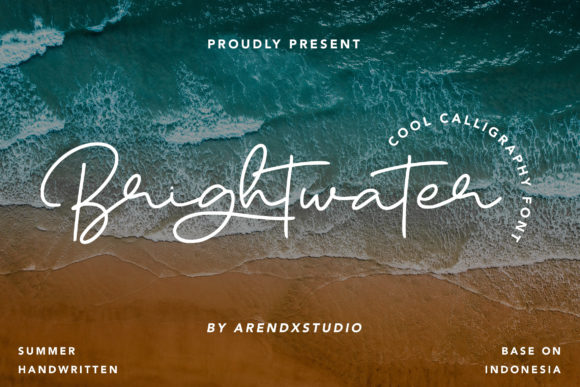
The Magic of Brightwater Font: A Designer’s Delight
Have you ever been in the middle of a design project, and suddenly, you’re stuck on finding the perfect font? I recall a recent experience where a client asked for a logo that exuded elegance and playfulness. After scouring through numerous font libraries, I stumbled upon Brightwater – a lovely and timeless handwritten font that instantly captured the essence of what I was looking for.
Brightwater is a beautiful, handwritten font that can add a touch of sophistication to any design project. Its unique and beautiful touch makes it an excellent choice for creating eye-catching logos, branding, and quotes.
An Honest Review of Brightwater Font
What I Love About Brightwater ✨
- ✅ Unique and beautiful touch: Every letter in Brightwater has a distinct character that sets it apart from other fonts.
- ✅ Highly versatile: Brightwater can be used for a wide range of design projects, from logos and branding to quotes and social media graphics.
- ✅ Easy to read: Despite its elegant and cursive nature, Brightwater remains highly legible, making it perfect for body text and headlines.
- ✅ Timeless appeal: Brightwater’s classic look ensures that your design will stand the test of time and won’t go out of style anytime soon.
While Brightwater is an exceptional font, there are a few minor limitations to consider:
- ⚠️ Limited availability of stylistic alternates: Brightwater doesn’t offer an extensive range of stylistic alternates, which might limit your creative options.
- ⚠️ May not be suitable for very small text sizes: Due to its elegant and cursive nature, Brightwater might not be the best choice for very small text sizes, as it may become difficult to read.
The Story Behind Brightwater Font
Brightwater was designed by a talented type designer who aimed to create a font that exudes elegance and playfulness. The designer’s inspiration came from traditional handwritten scripts, combined with modern typography techniques. The result is a beautiful and timeless font that’s perfect for a wide range of design projects.
| Font Name | Brightwater Font |
| Author | Arendxstudio |
Q: What type of designs is Brightwater best suited for?
A: Brightwater is an excellent choice for designs that require a touch of elegance and playfulness, such as logos, branding, quotes, and social media graphics.
Q: Does Brightwater support OpenType features?
A: Yes, Brightwater supports OpenType features, such as ligatures and stylistic alternates, which can enhance your design and add more personality to your text.
Q: Is Brightwater easy to read?
A: Yes, Brightwater is highly legible, making it perfect for body text and headlines.